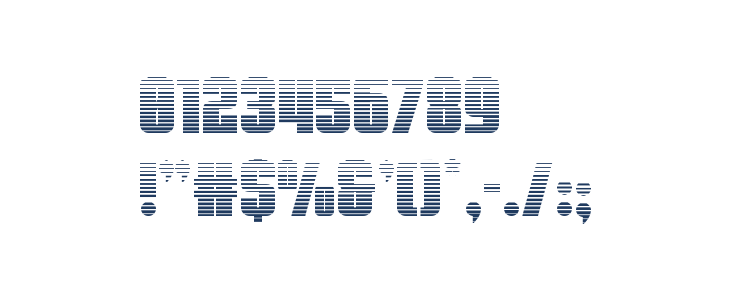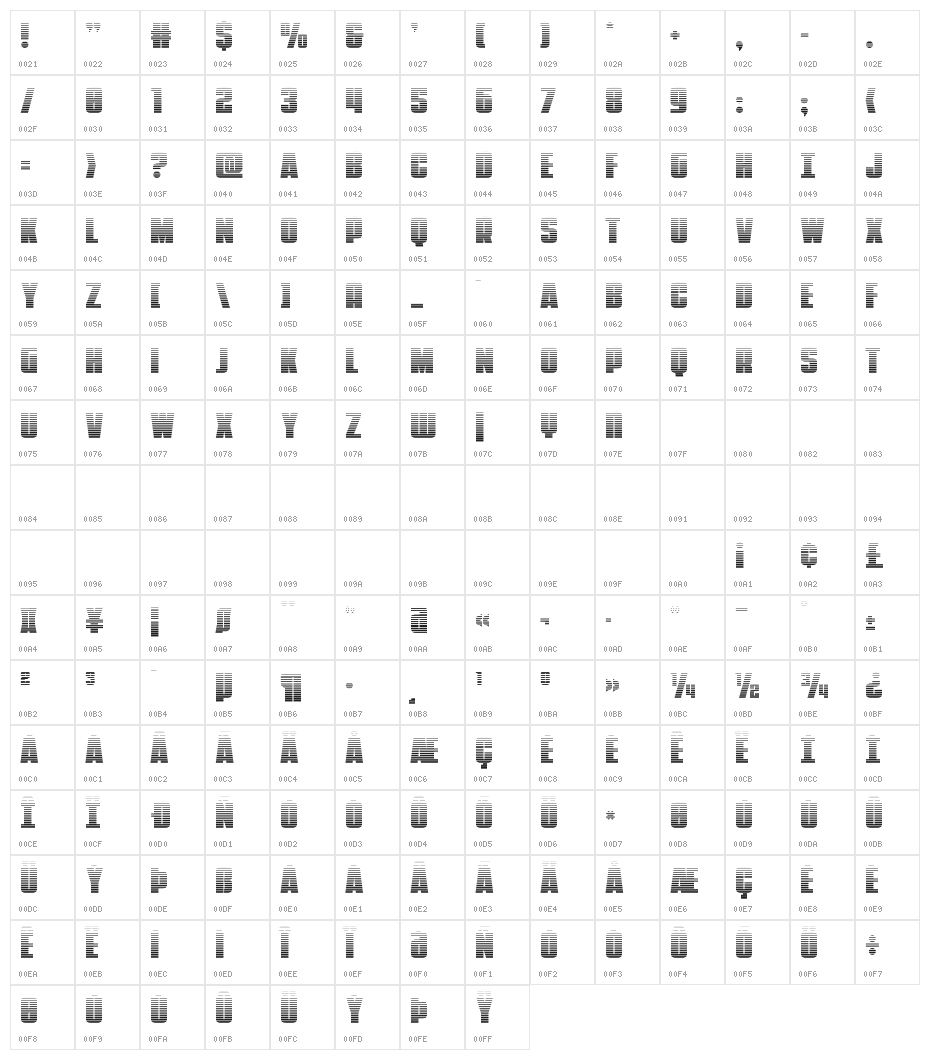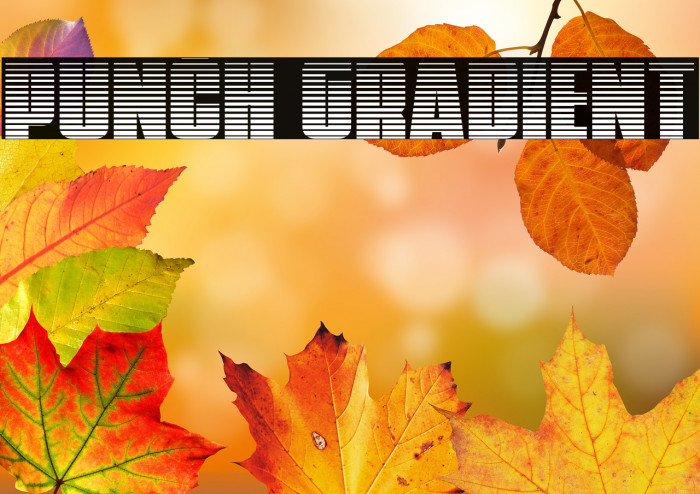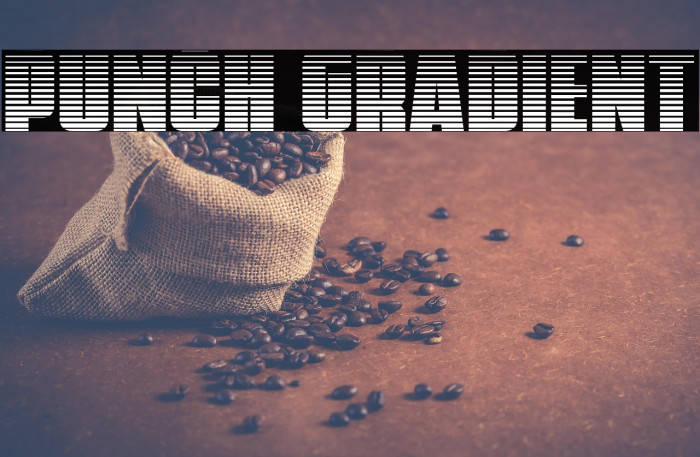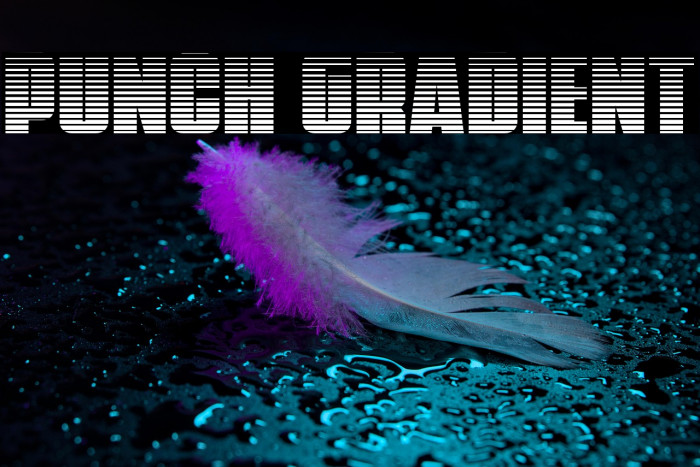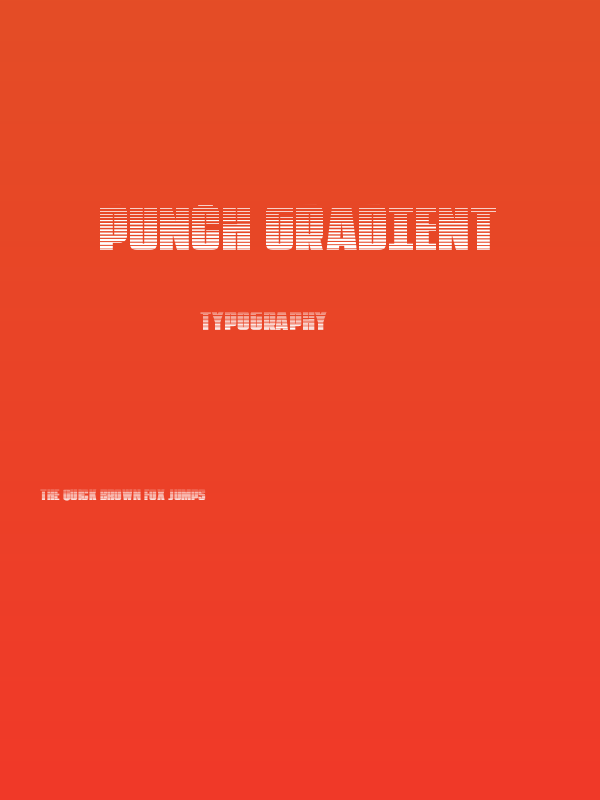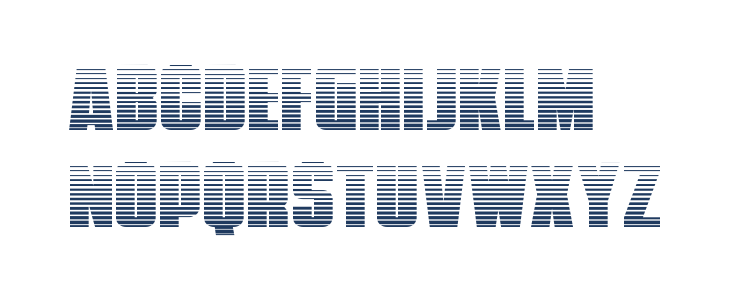
Punch Gradient Font
This font features a bold, striking design with a unique gradient effect created by horizontal lines running through each character. The uppercase letters are prominent and commanding, making a strong visual impact. The numbers and special characters follow the same stylistic approach, ensuring consistency across all elements. The font's design is reminiscent of digital or technological themes, with a modern and futuristic feel. The horizontal lines create a sense of movement and dynamism, making it ideal for projects that require a bold statement.
| Proposed Projects | Ideal for technology-themed posters, futuristic branding, digital media, and eye-catching headlines. |